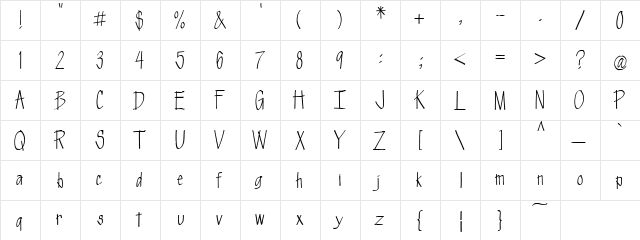
PC Kae's Kasual Regular
PC Kae's Kasual is a composed and adaptable typeface that performs quietly and consistently across a wide range of design contexts.